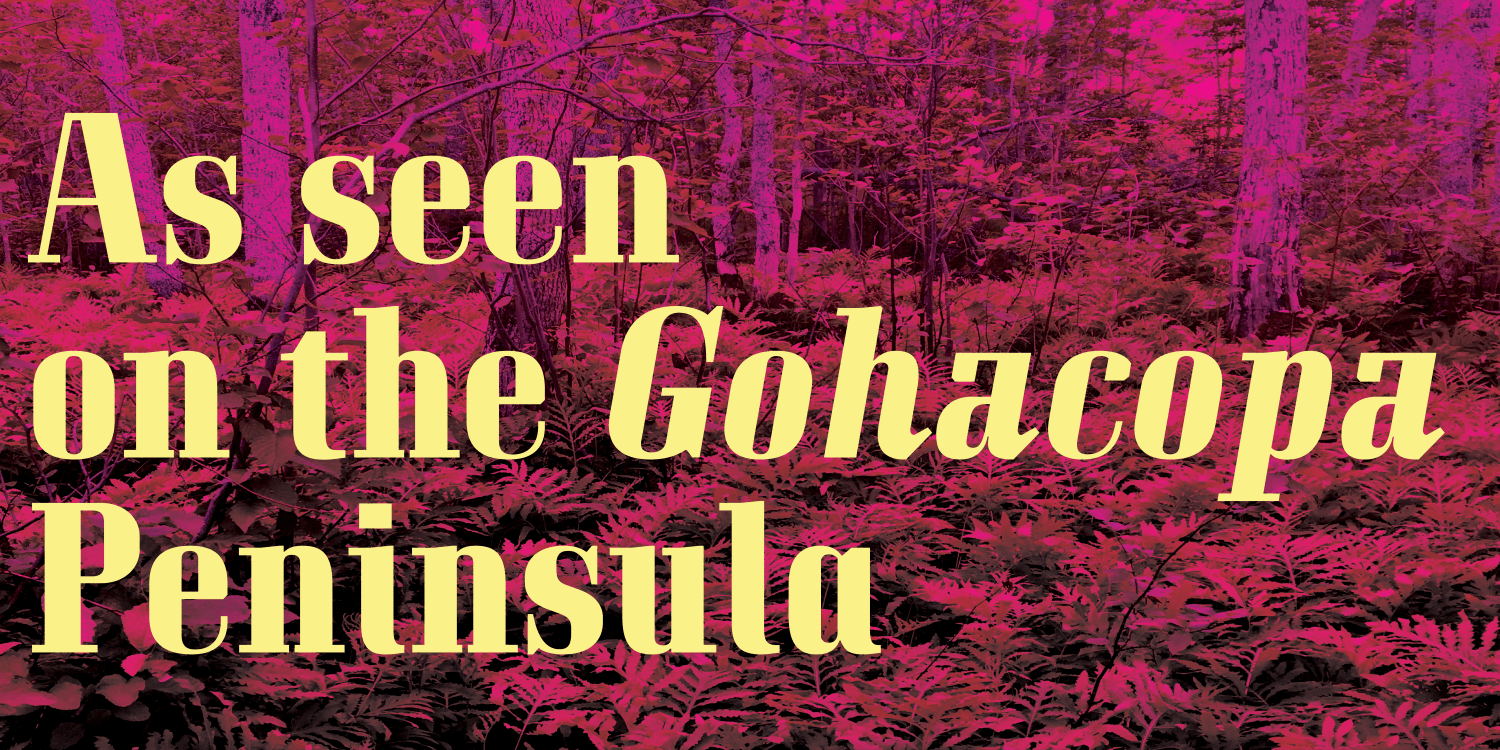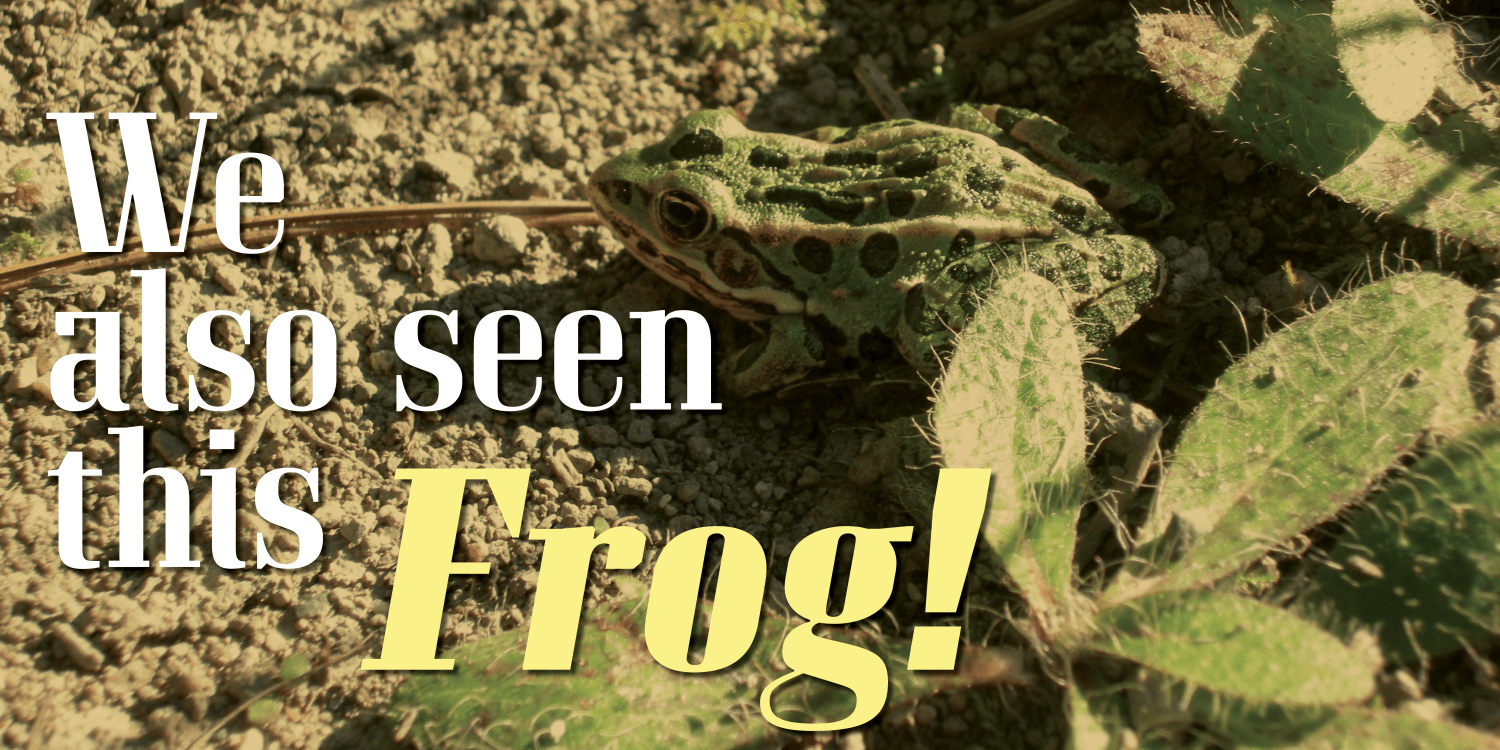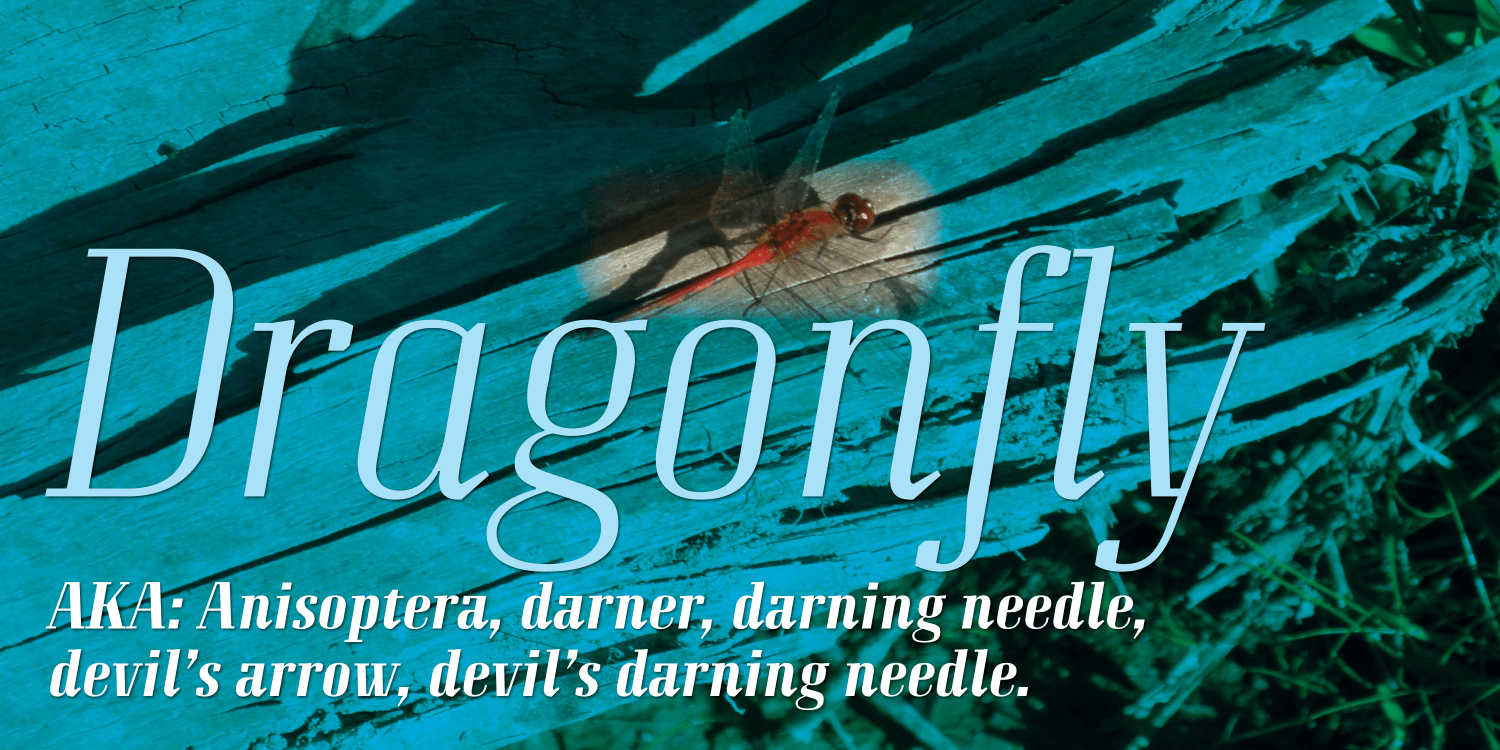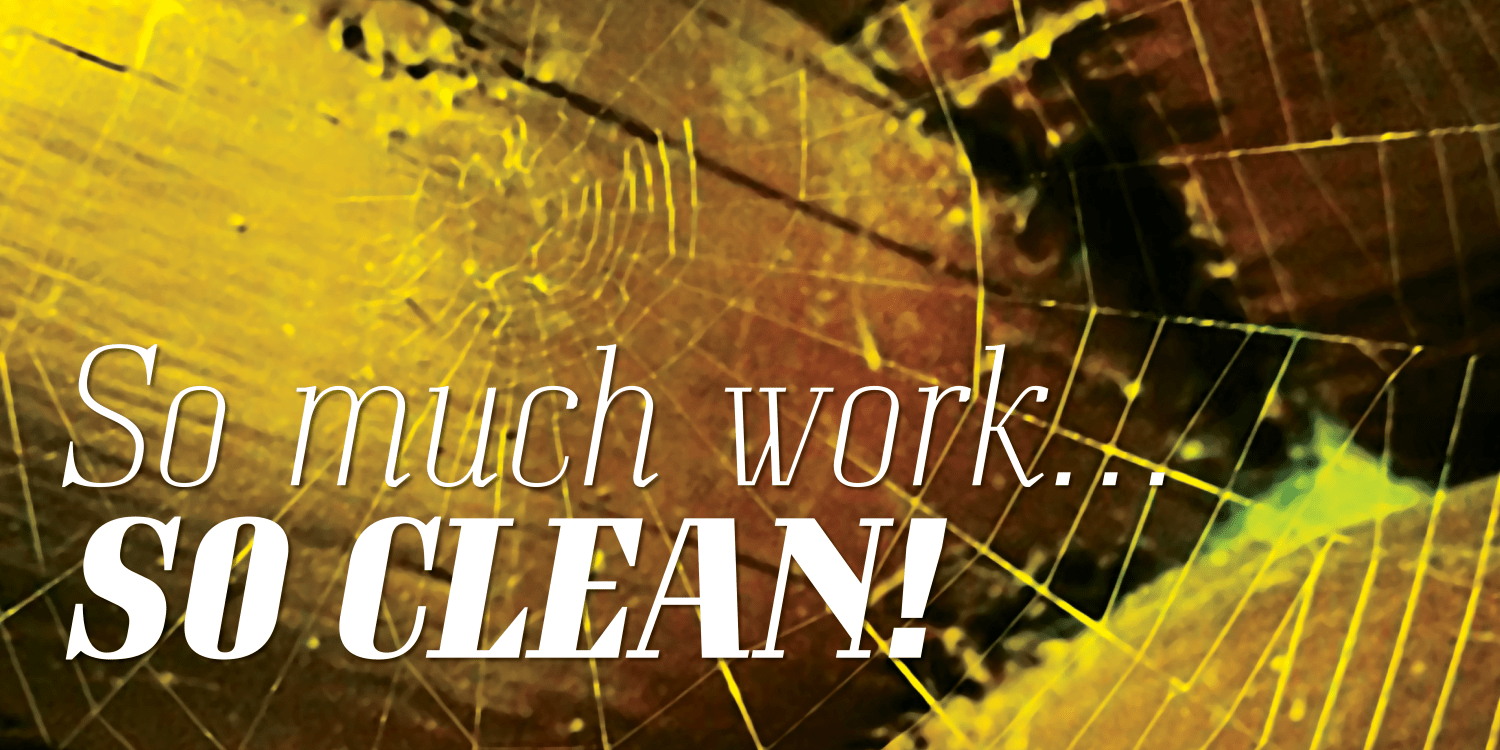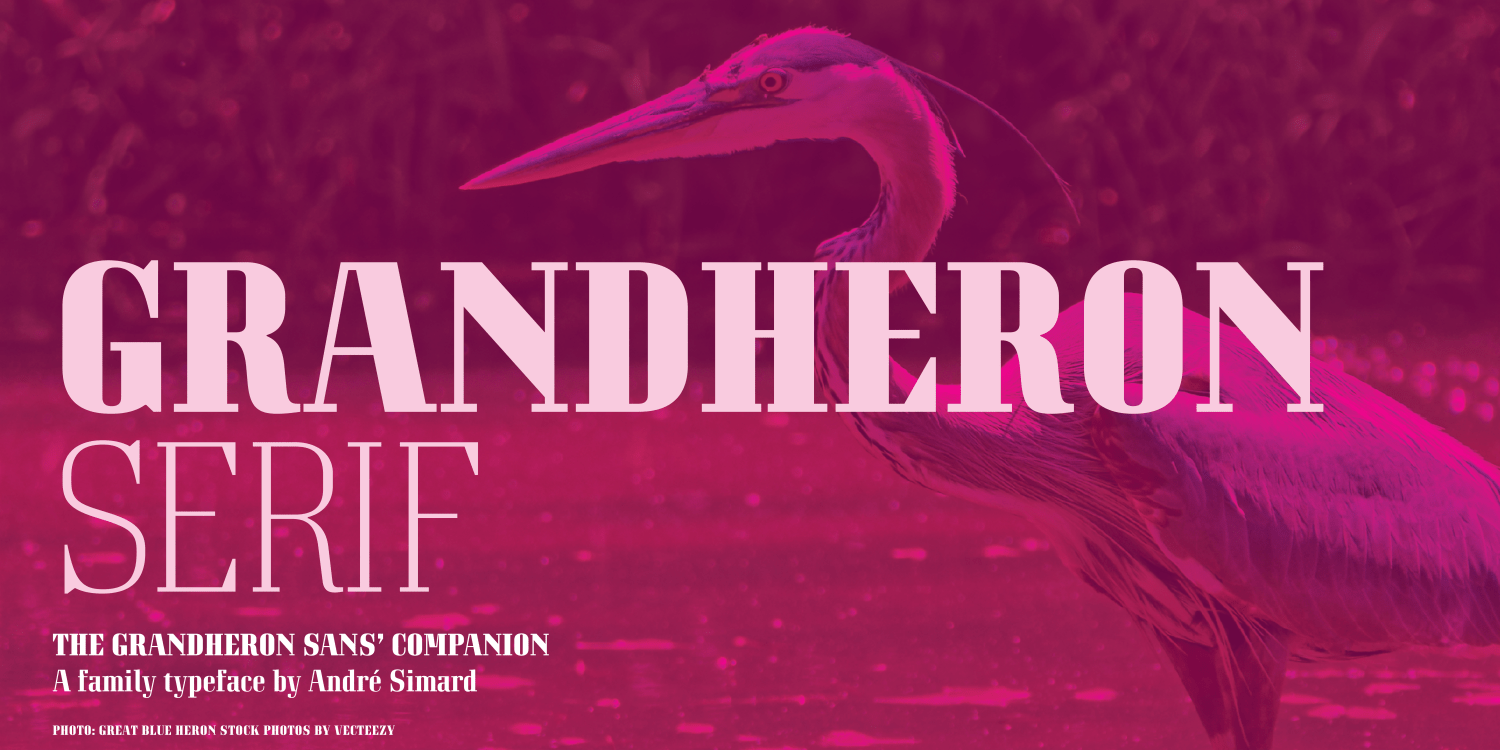
Grandheron Serif New
About Grandheron Serif New
This is the much-anticipated serif version of Grandheron Sans New. Grandheron Serif New is an entirely new design, crafted as a thoughtful companion to the Sans styles. It expands the typographic possibilities of the Grandheron family, offering…